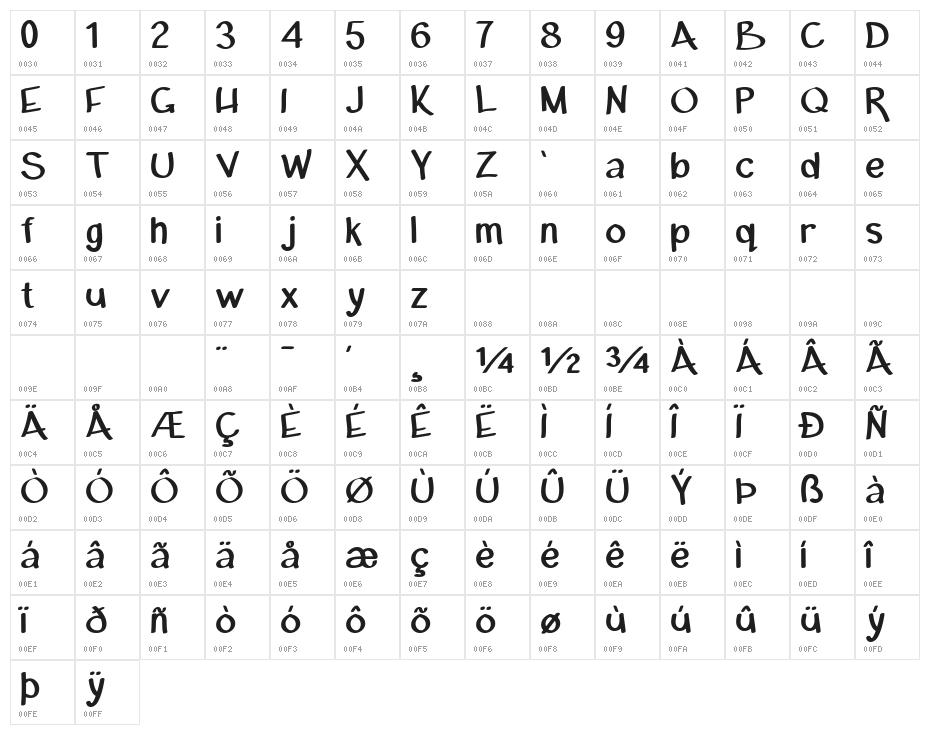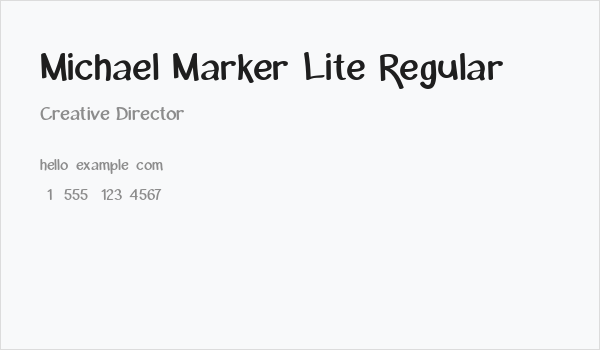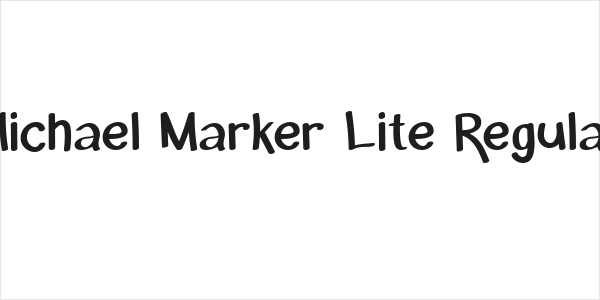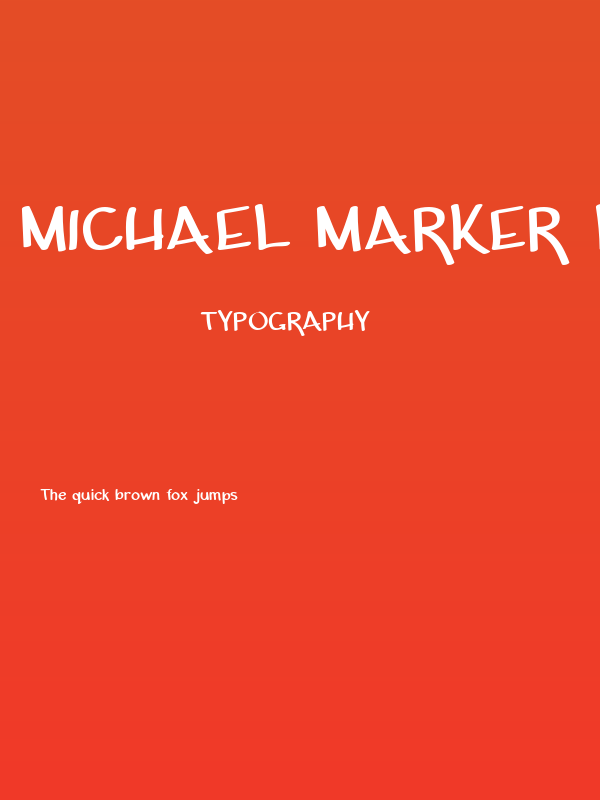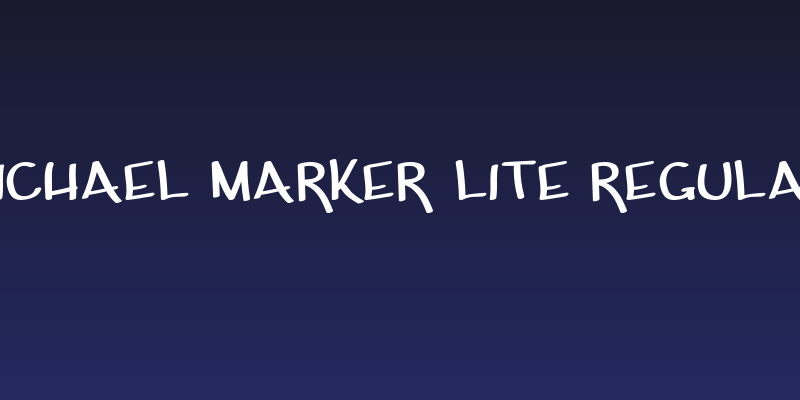
Michael Marker Lite Regular Font
Michael Marker Lite Regular Description
This playful and casual font features a handwritten style with a slightly irregular baseline, giving it a lively and informal appearance. The characters are rounded with a smooth flow, reminiscent of writing with a marker. The uppercase letters are bold and prominent, while the lowercase letters maintain a consistent height, enhancing readability. The numbers are clear and distinct, matching the overall playful aesthetic. Special characters are integrated seamlessly, maintaining the font's cohesive look.
| Proposed Projects | Ideal for children's books, playful branding, casual invitations, and creative posters. |